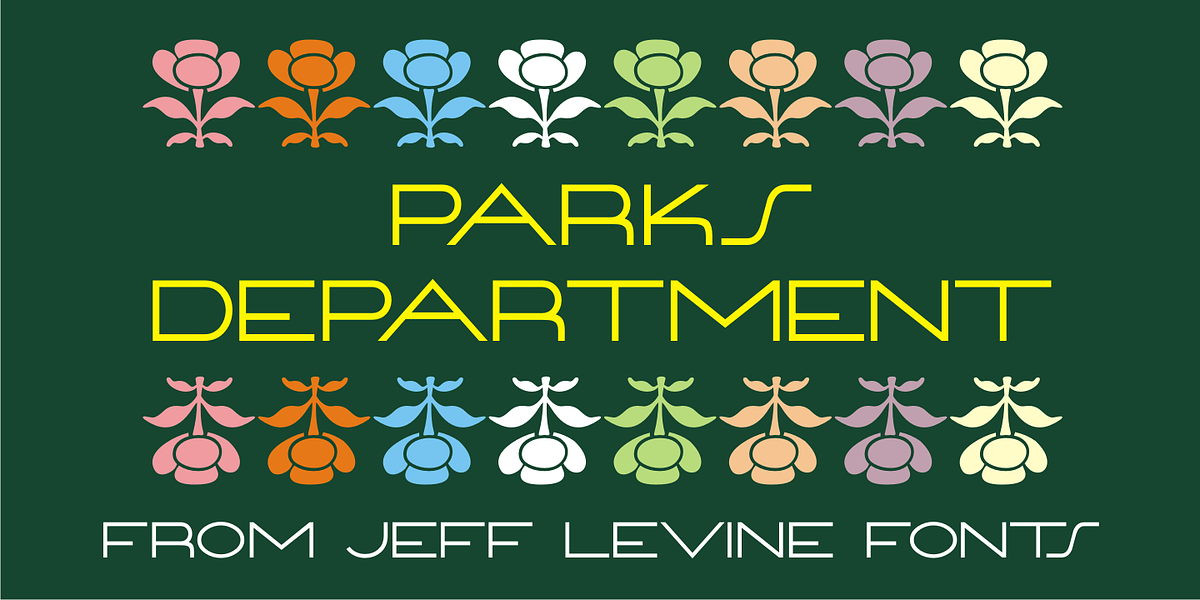
Parks Department JNL
A WPA (Works Progress Administration) sponsored Water Carnival taking place in Central Park in the 1930s had 'Department of Parks, City of New York' in the thin Art Deco hand lettering which is now available as Parks Department JNL.